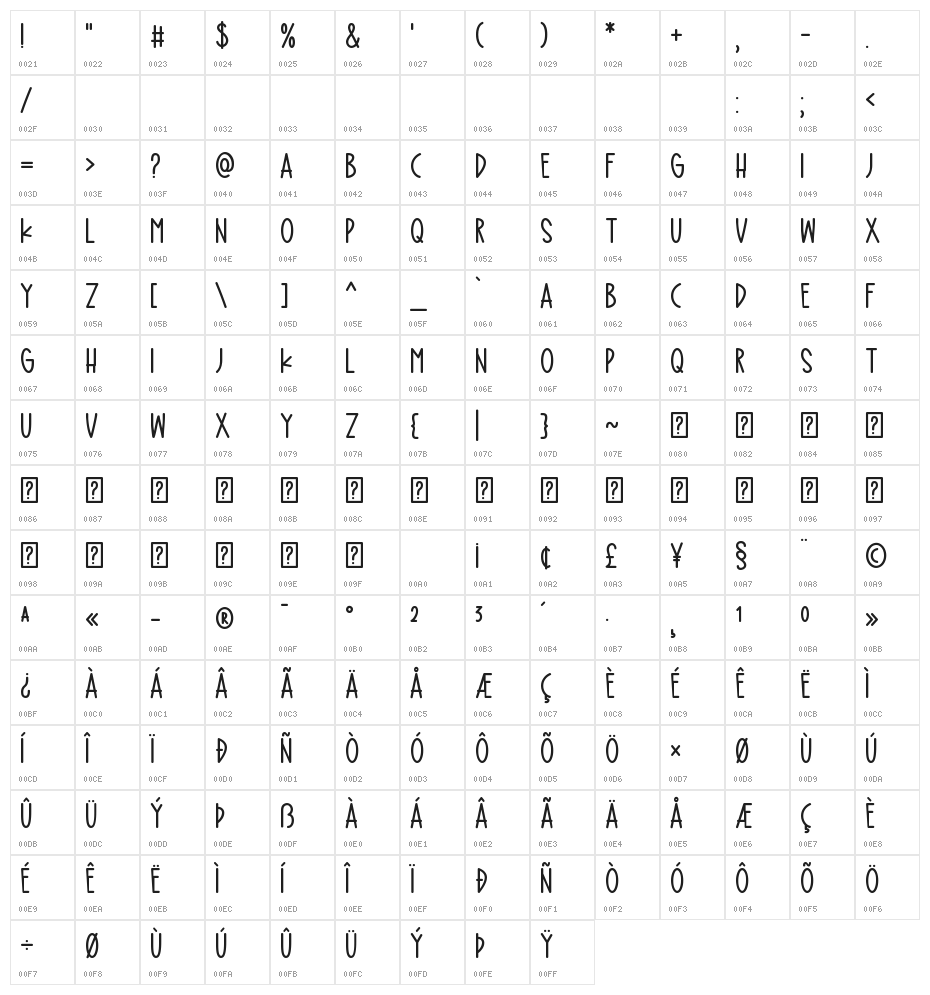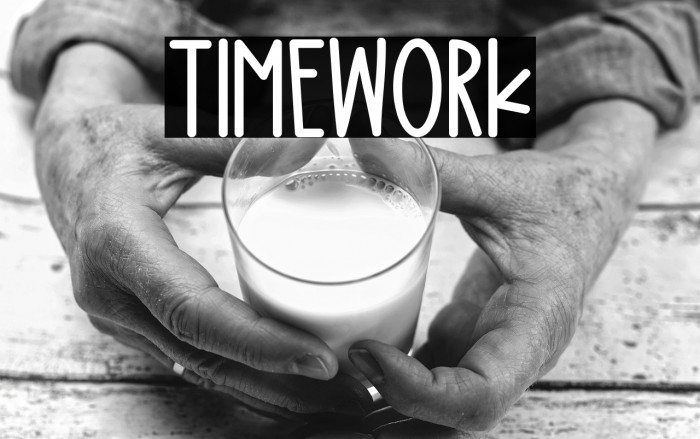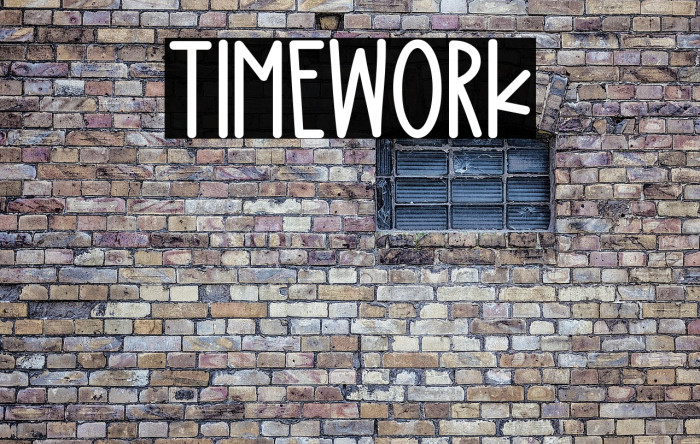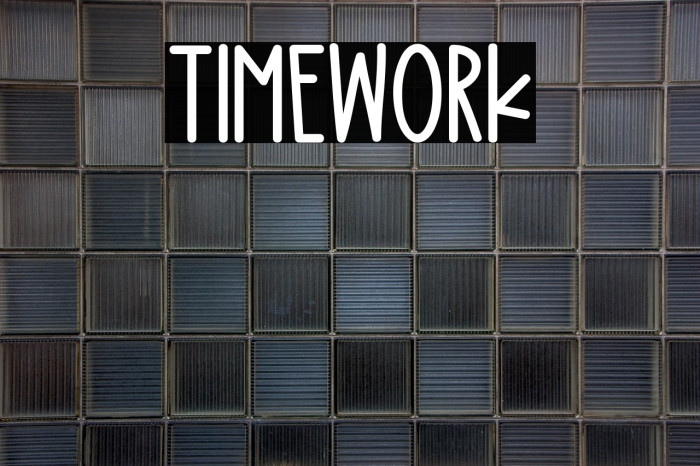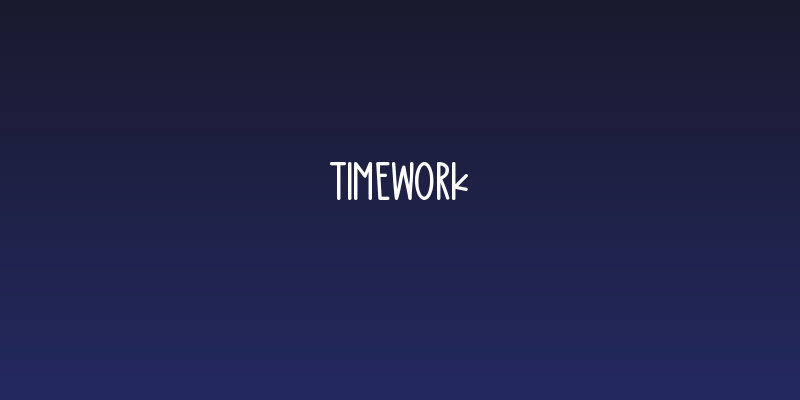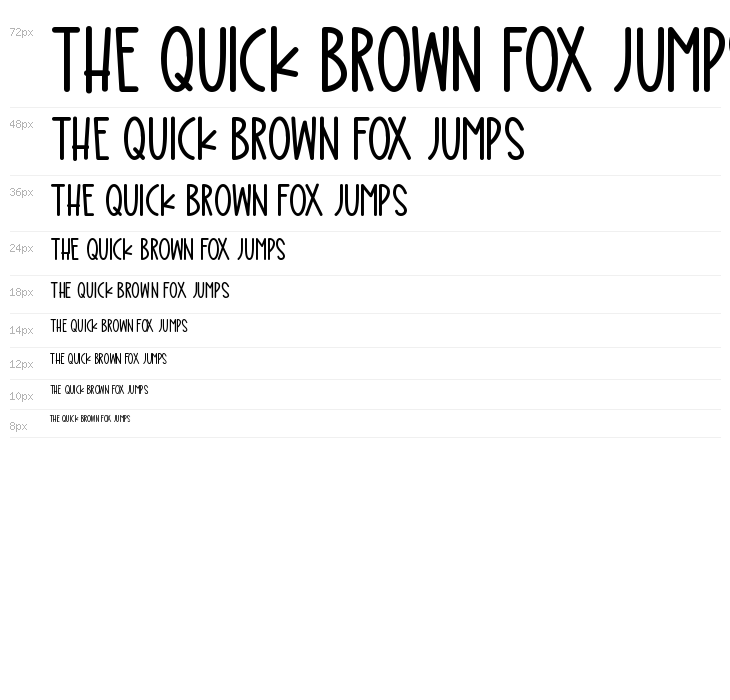
Timework Font
Timework Description
This font features a playful and informal design with tall, narrow letters that have a hand-drawn appearance. The characters are slightly irregular, adding to the casual and friendly feel. The strokes are consistent in width, providing a uniform look across all characters. The font includes both uppercase and lowercase letters, numerals, and a variety of special characters, making it versatile for different uses. The overall style is modern and approachable, suitable for projects that require a personal touch.
| Width | Condensed |
| Overall Style | Modern, Decorative |
| Use Case | Headlines, Logos, Informal Text |
| Proposed Projects | Ideal for children's books, greeting cards, casual branding, and social media graphics. |